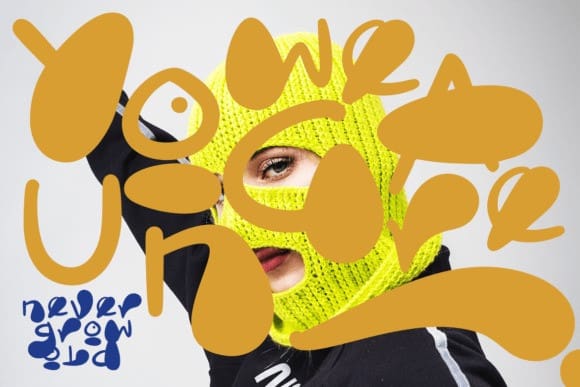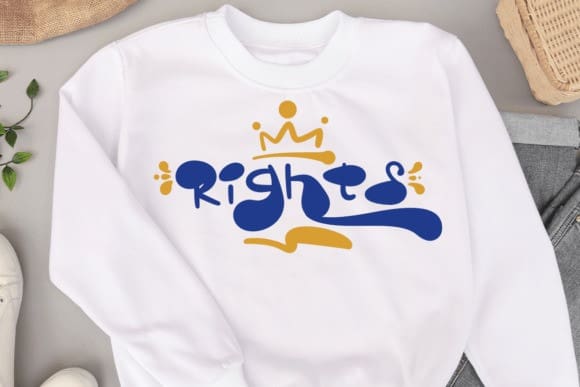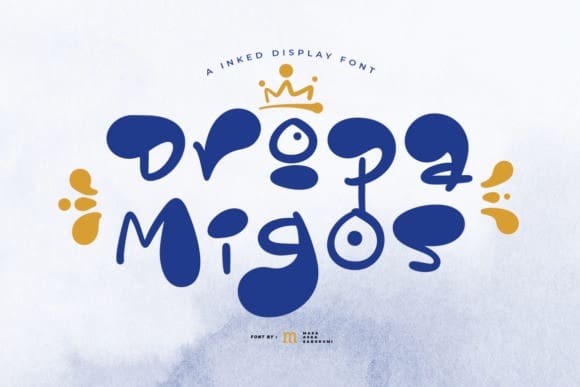
Dropa Migos Font
Dropa Migos Font is a stylish and playful display font. Use this display font to add that special retro touch to any design idea you can think of! Masterfully designed to become a true favorite, this font has the potential to bring each of your creative ideas to the highest level!